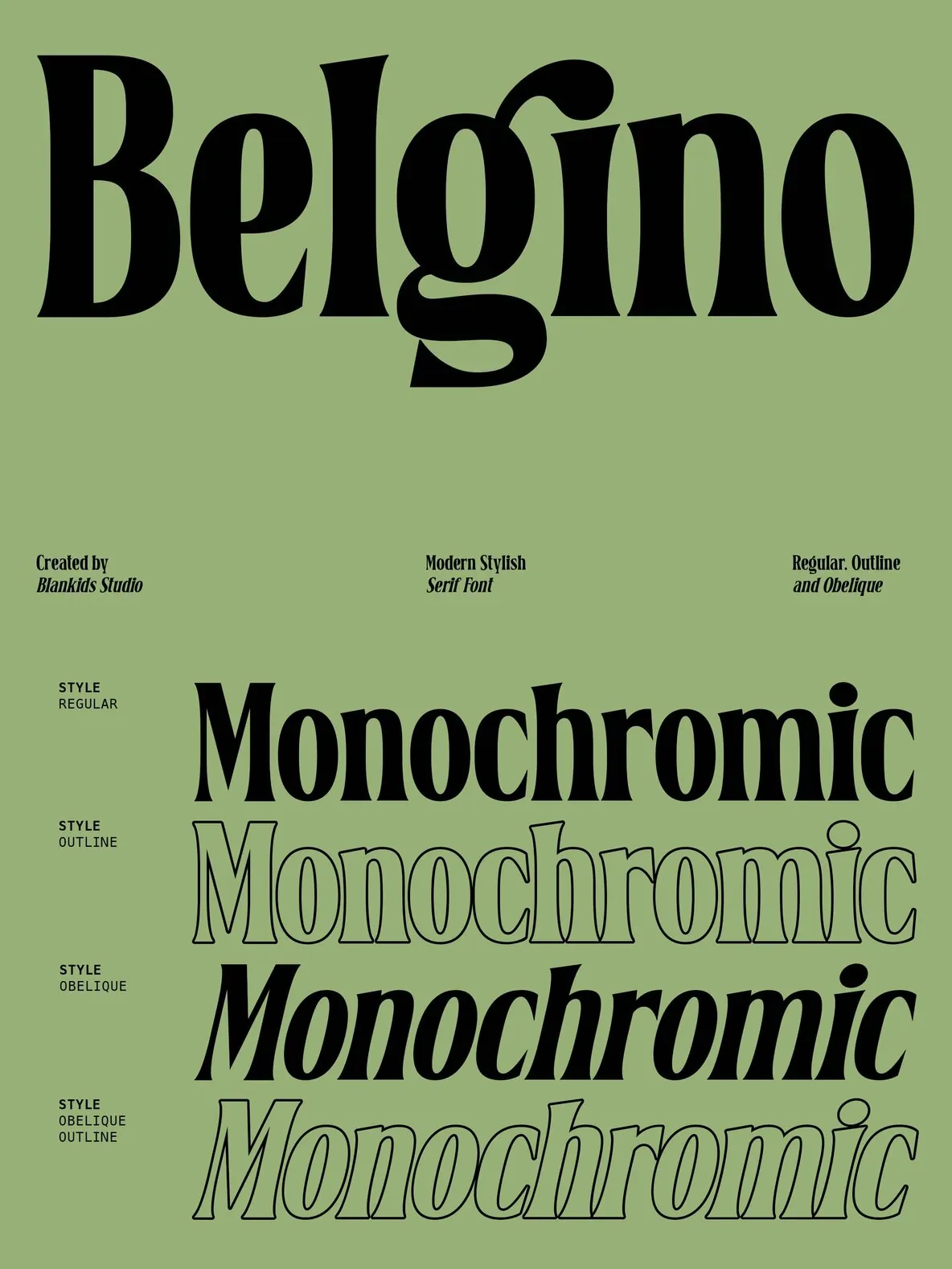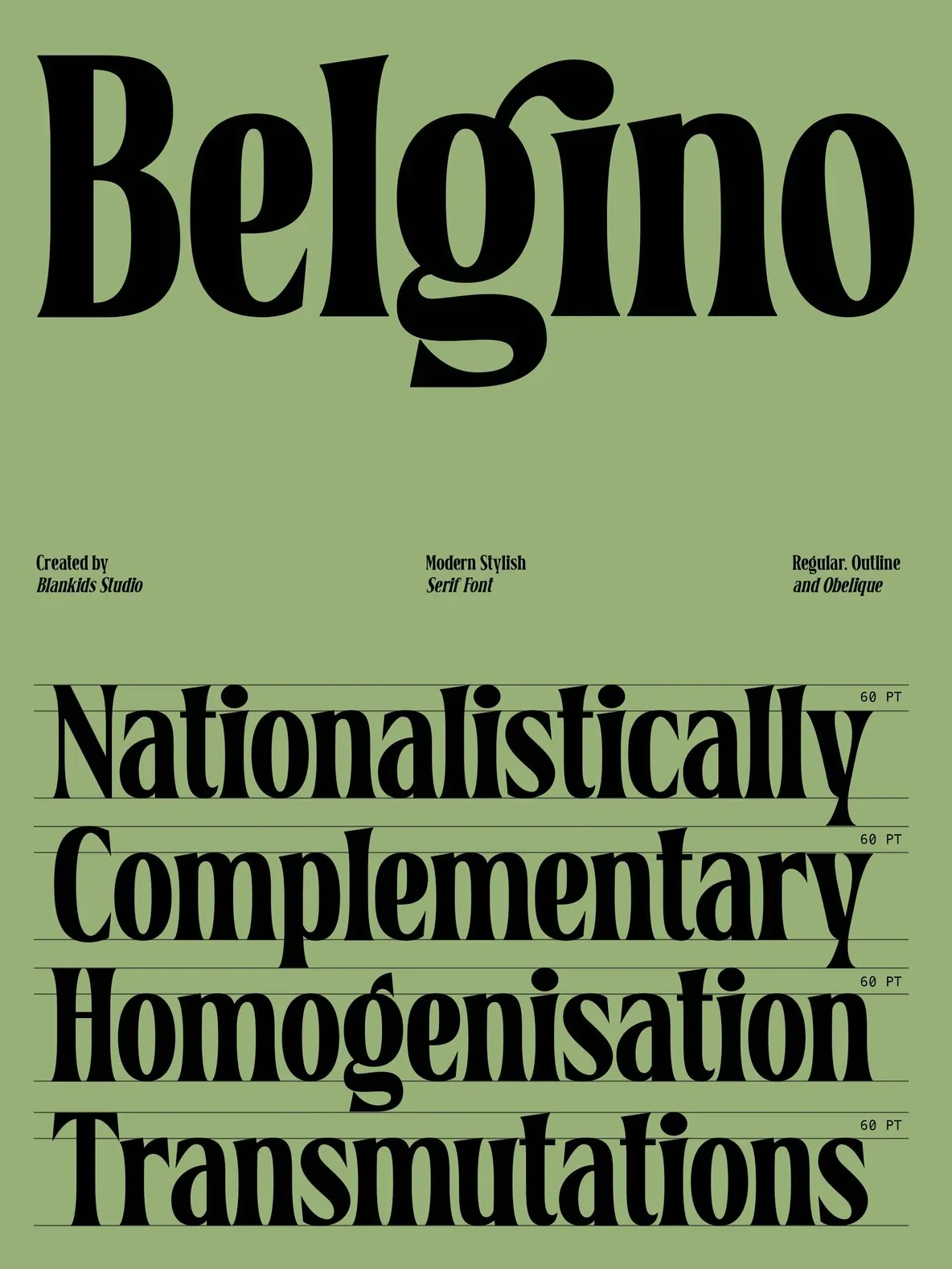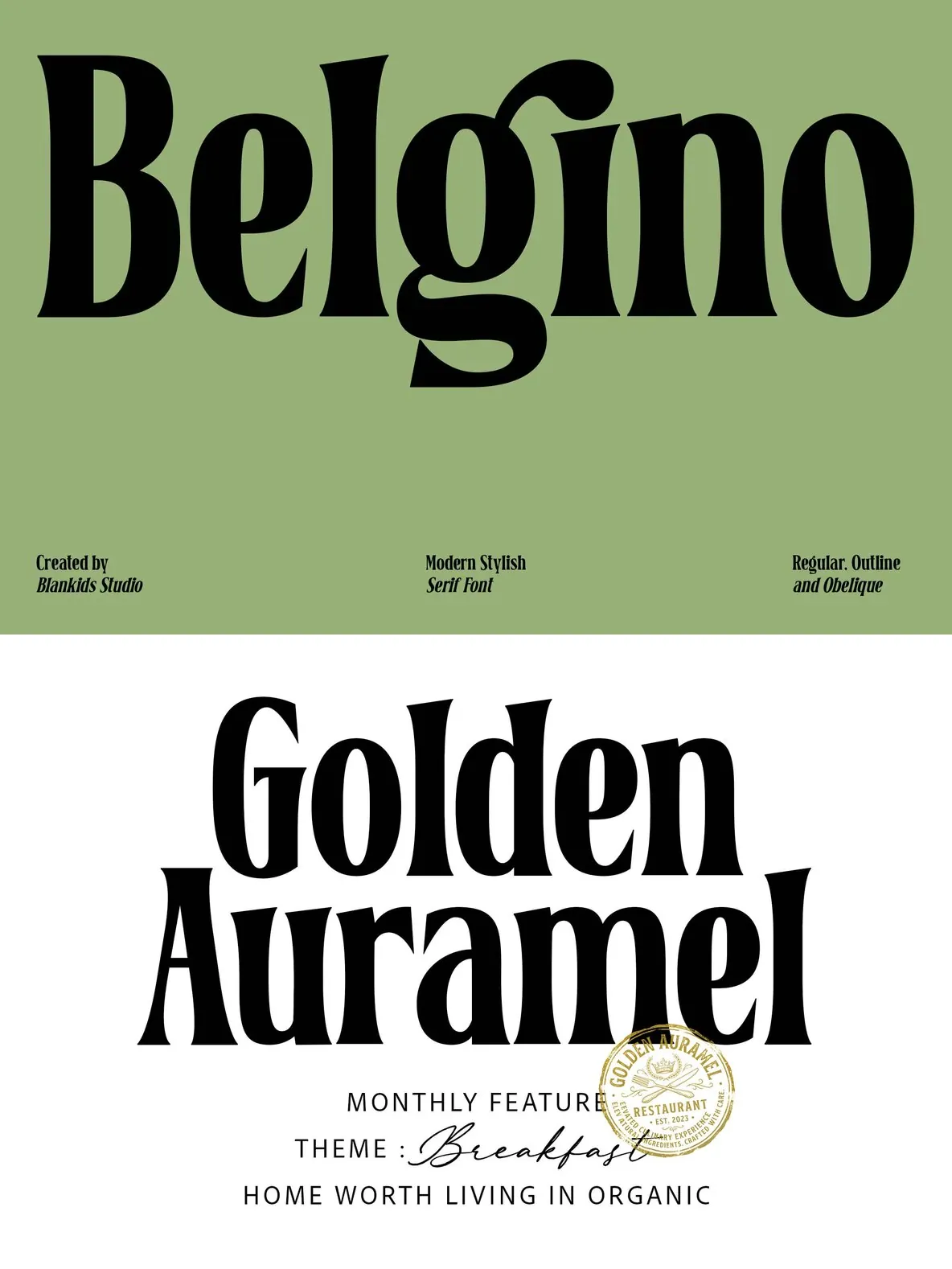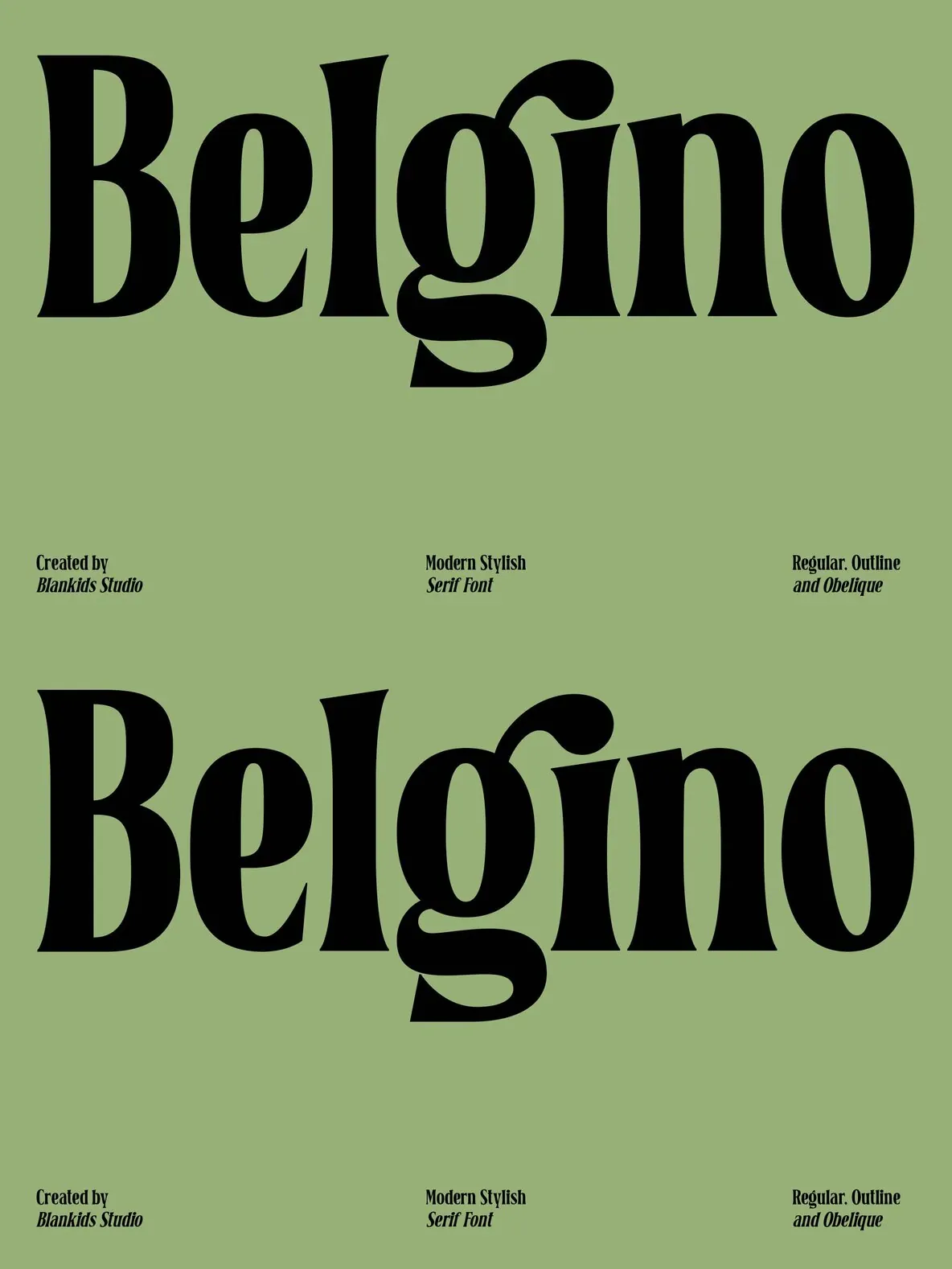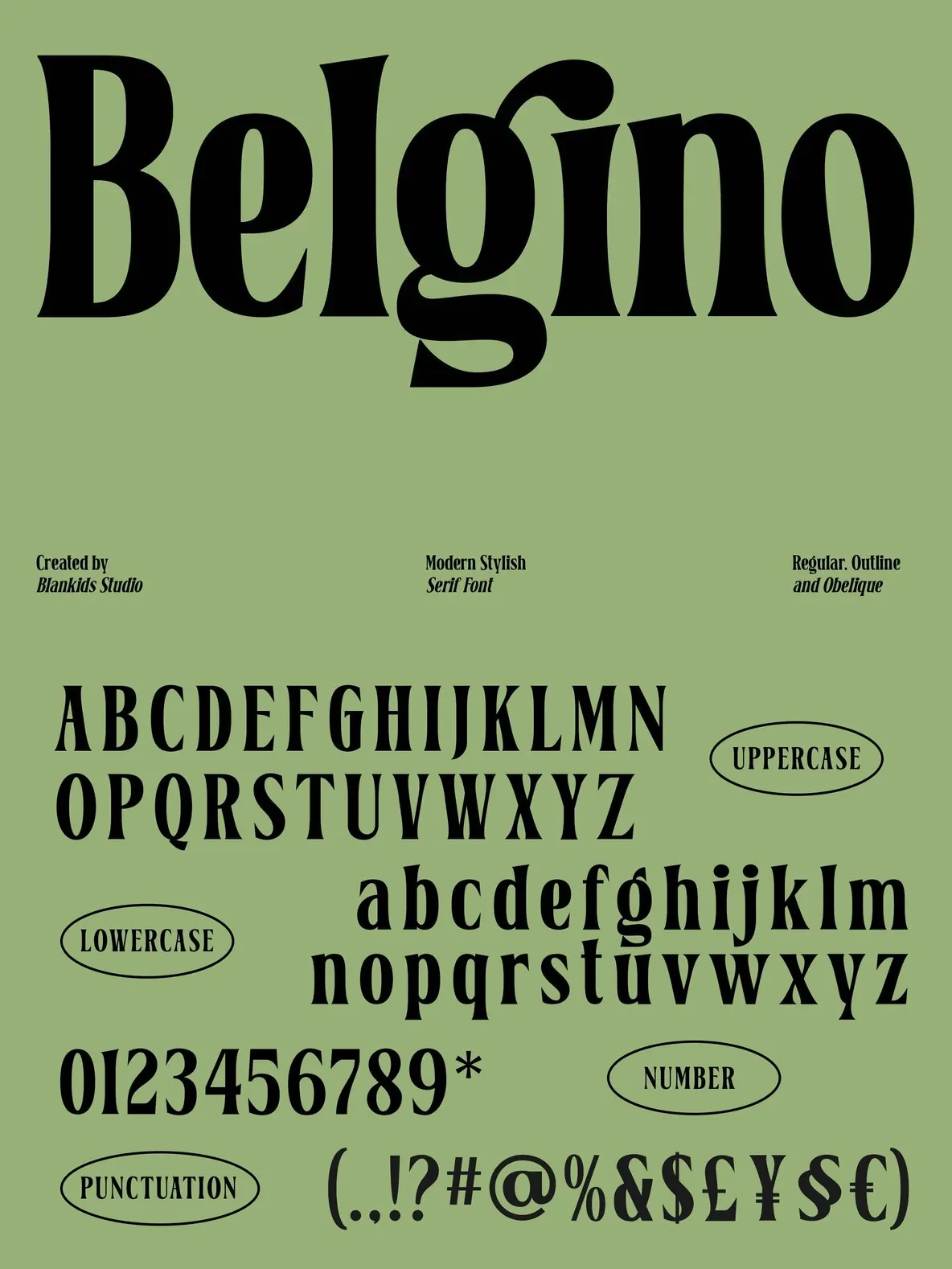
Belgino — Editorial Serif With Attitude
Belgino is a modern stylish serif font made to bring elegance, personality, and a high-end tone to typography. Bold curves, sharp serifs, and distinctive letterforms give it a clear balance of classic sophistication and contemporary style. It reads as confident and fashionable, with shapes that keep the page lively without losing control.
This typeface stands out in large headlines while staying highly readable. Dramatic contrast and unique details make each word feel premium, expressive, and memorable. Use Belgino when you want an editorial voice that looks classy and modern, without feeling complicated or hard to read—especially in branding and luxury design projects.
Perfect for:
Branding and logo design
Editorial layouts and magazines
Restaurant, café, and bar menus
Packaging and product labels
Posters and advertising
Social media graphics
Wedding and event designs
Website headlines and hero titles
Belgino adds a refined, stylish voice to your work. Whether you’re building a luxury brand identity, a modern magazine cover, or an eye-catching poster, it helps typography look premium and professional with ease. Make your designs bold, elegant, and unforgettable with
Belgino
.